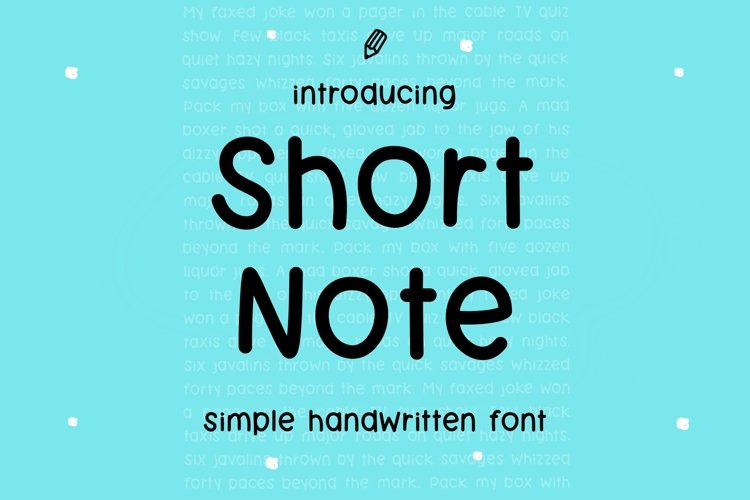
Make a Note natural handwriting font
Short Note is a simple, round lettered, note-taking style handwritten study font. This font includes Uppercase, lowercase, accented characters, numbers, standard punctuations. You can use this font in various projects -- blog posts, logos, invitations, greeting cards, planners, study note, decorations and much more!
Short note bolder version also included.